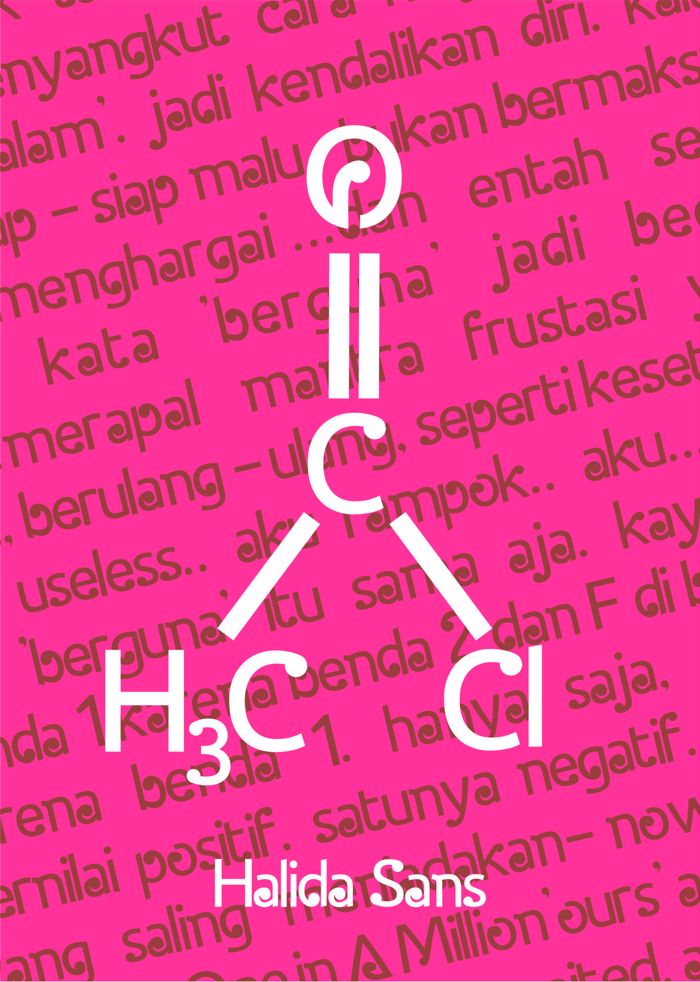
Halida Sans Font
the basic font is Ubuntu Sans.
I made this for my friend. Halida. She is awesome person. I made this by the inspiration of her. The swirly letters present her beauty. The sans serif presents her simplicity. Enjoy.